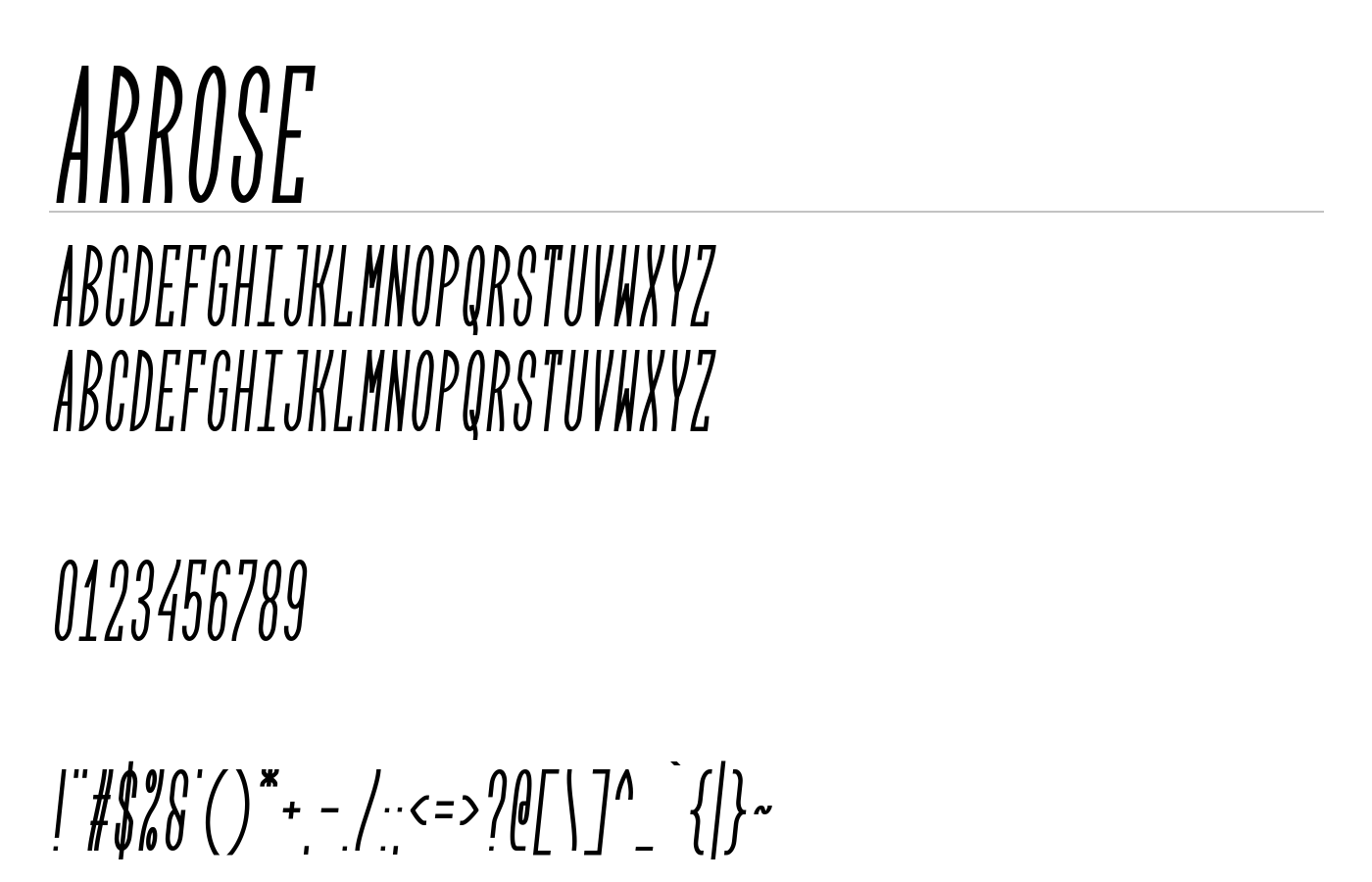
Arrose is a narrow, condensed sans serif font with a sleek and modern appearance. Its high contrast and tall, slender letterforms give it an elegant yet dynamic feel, making it ideal for stylish headlines, fashion branding, and contemporary editorial use where space is limited but impact is needed. This font’s distinctive elongated shape and clean lines communicate sophistication and modernity in a compact form.
Arrose Font
About Arrose Font